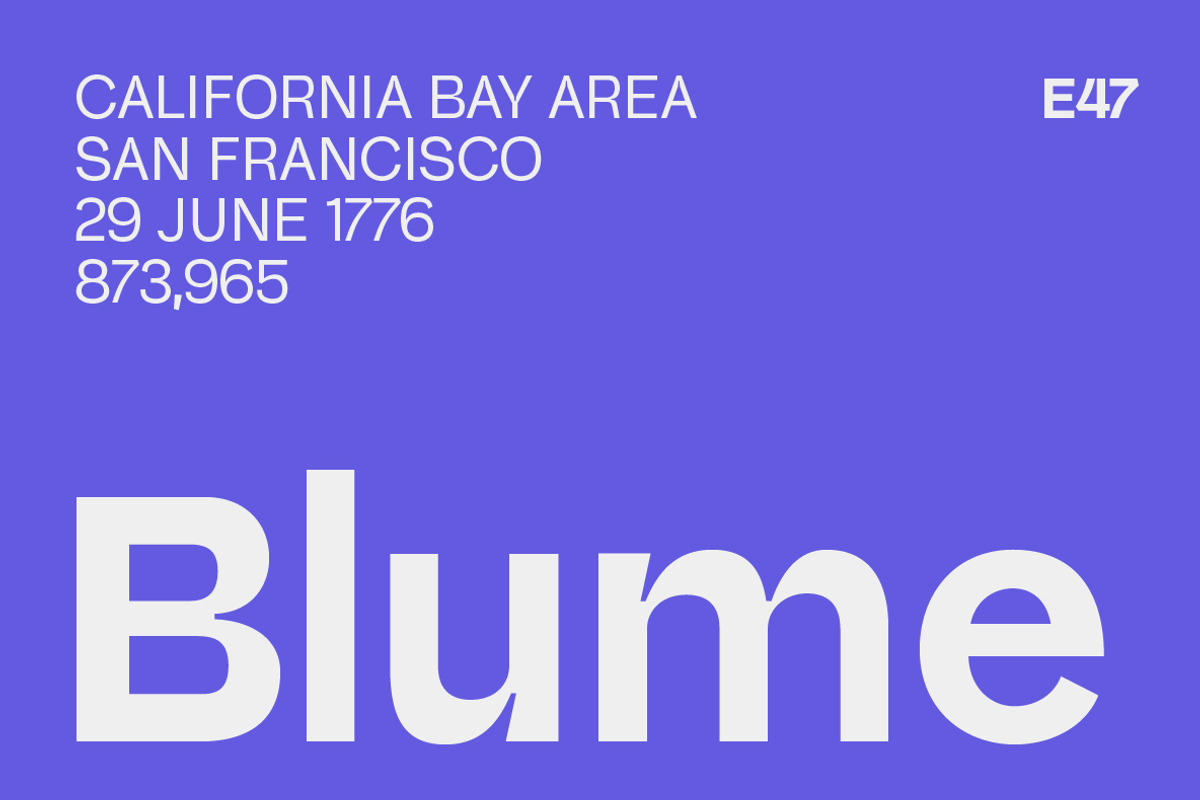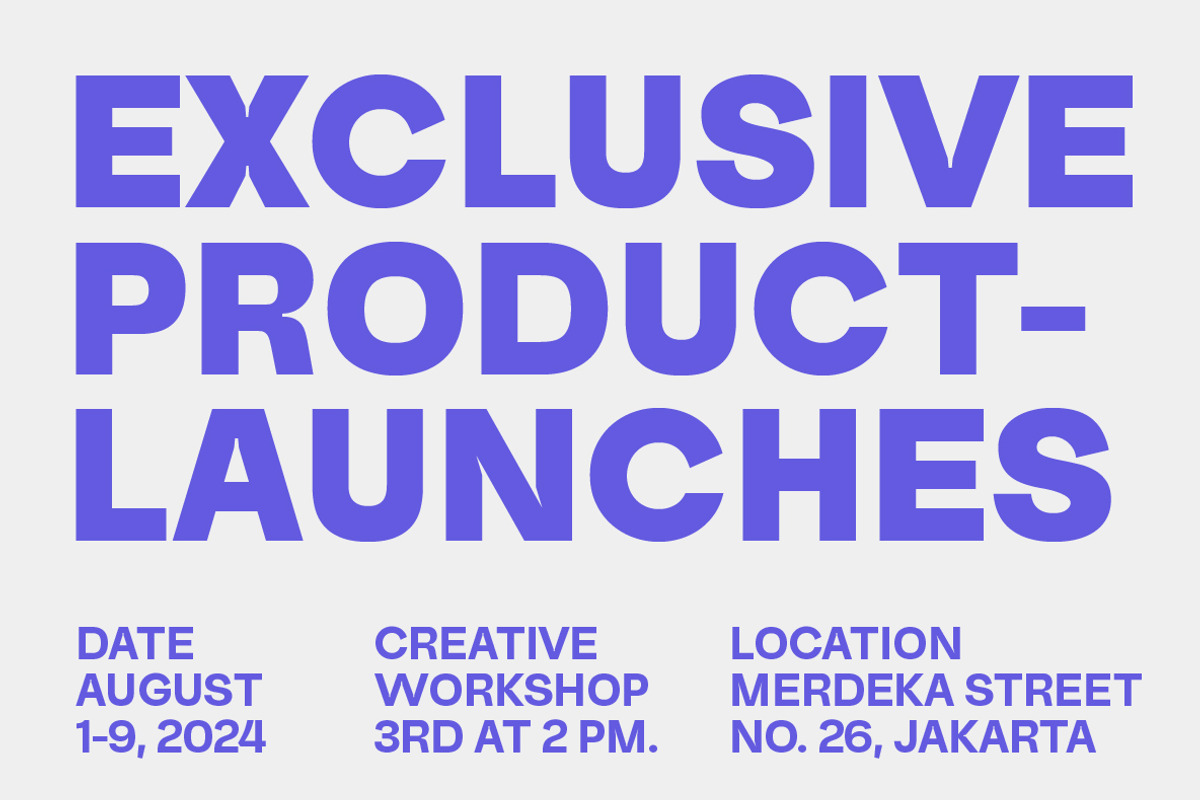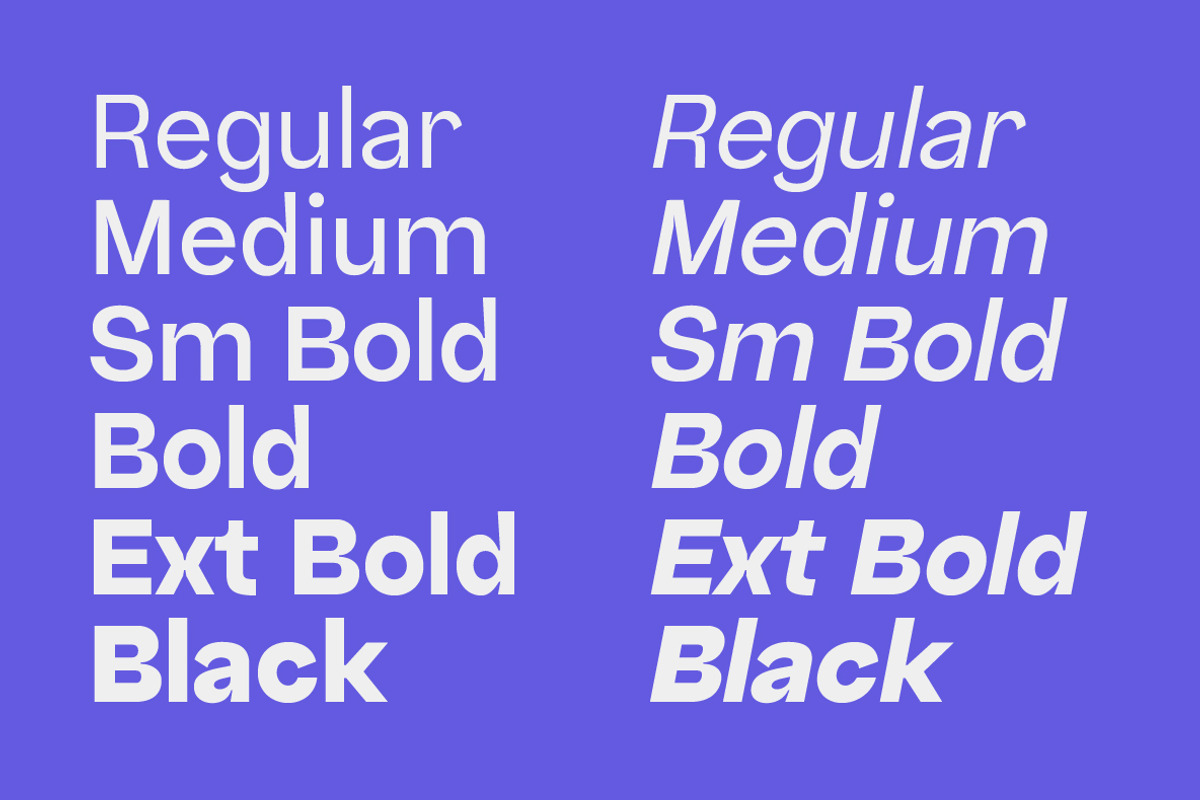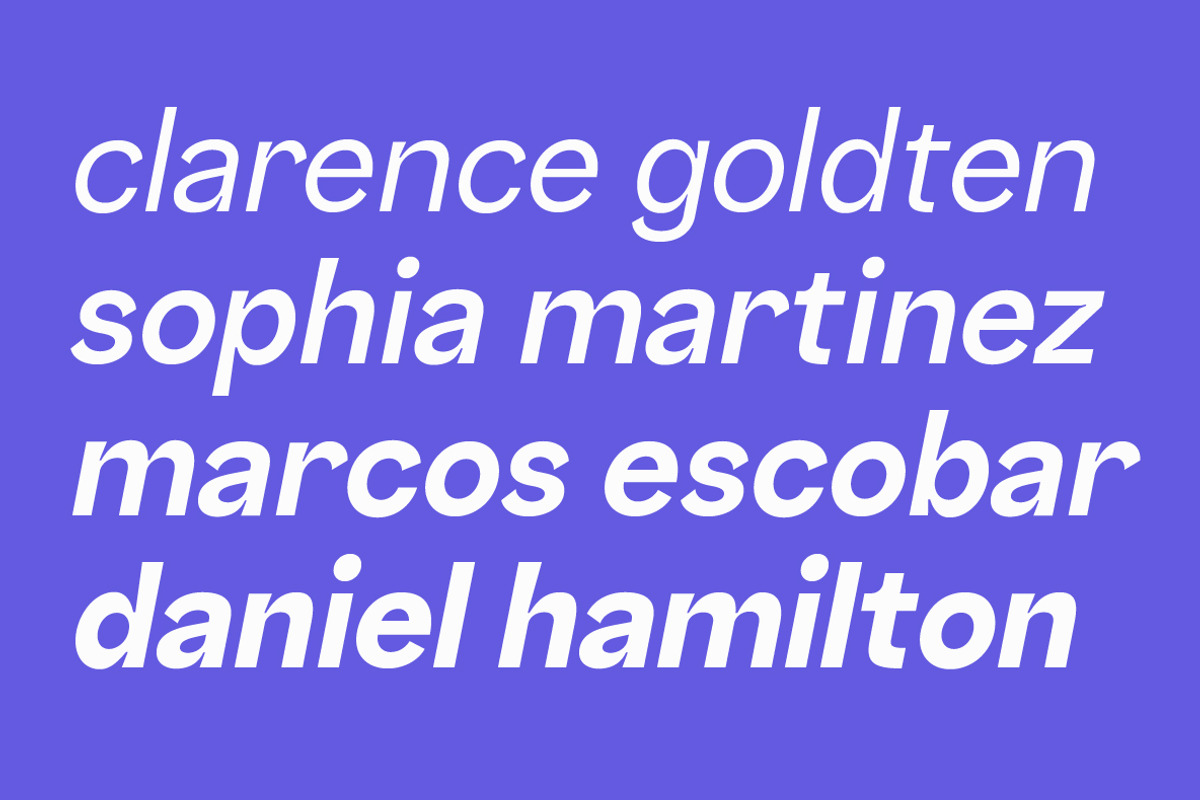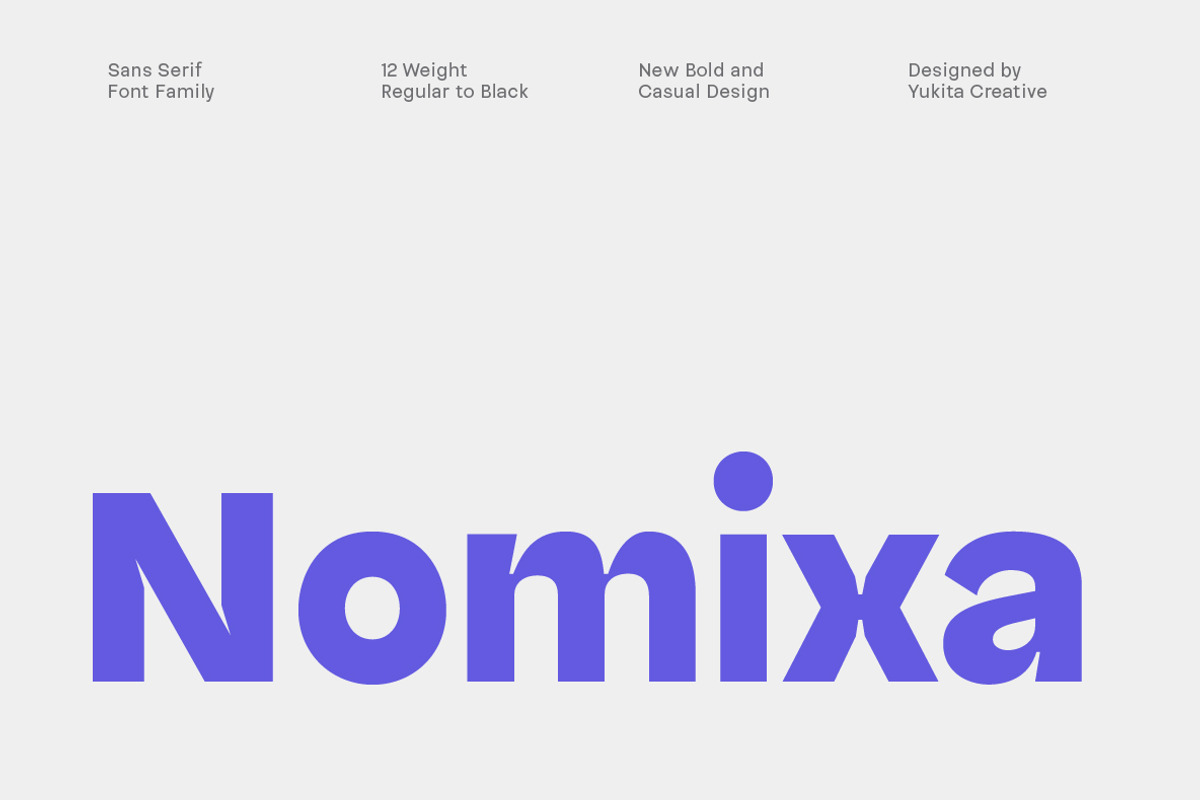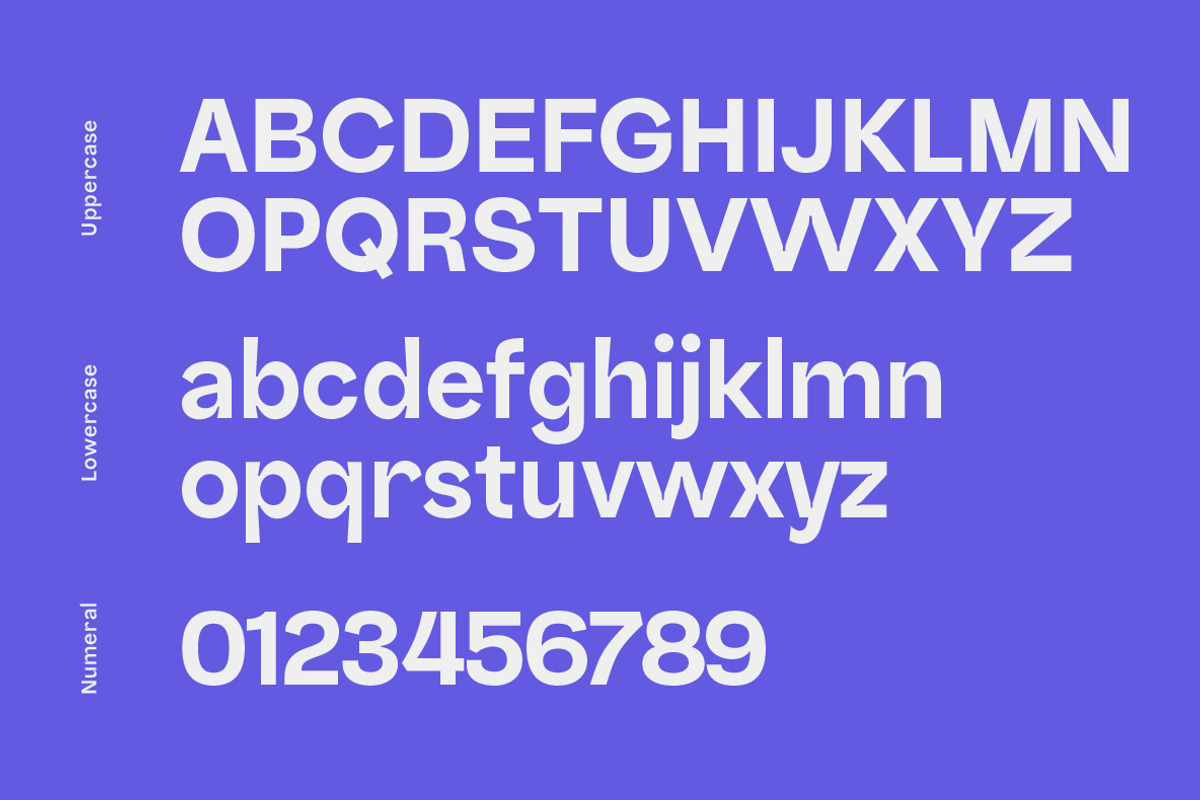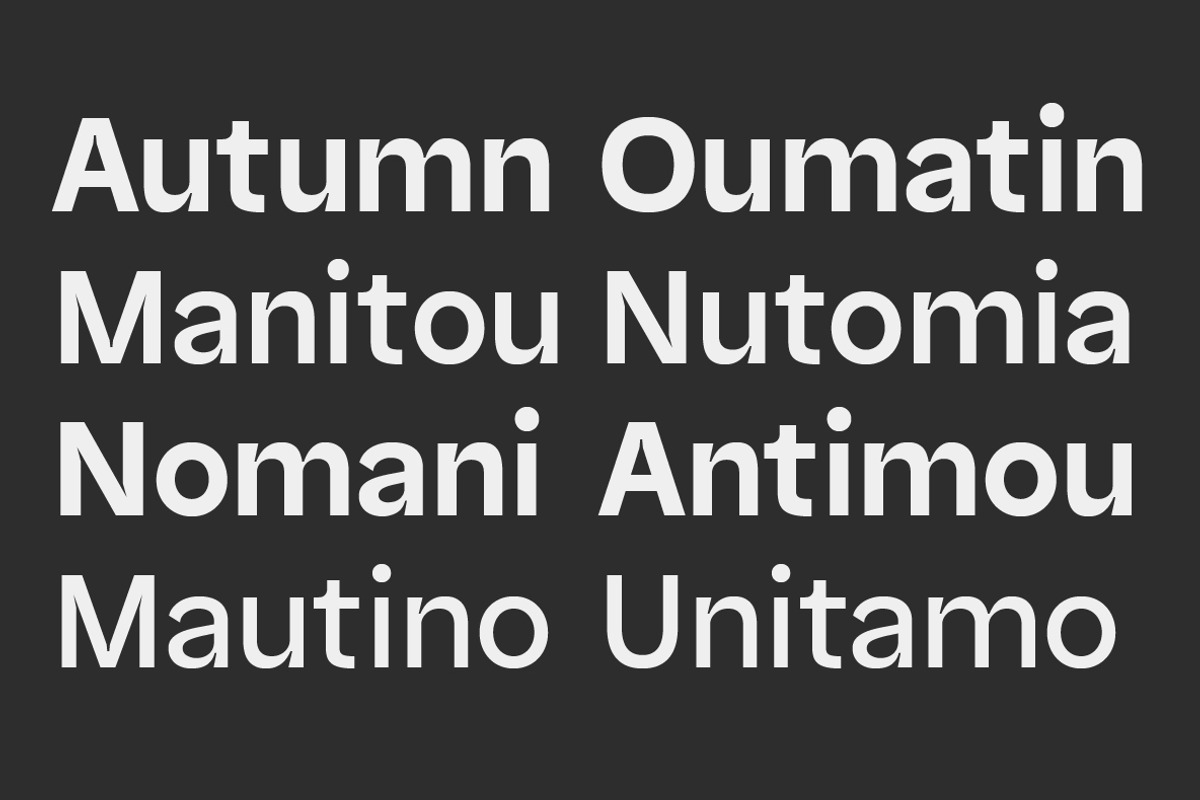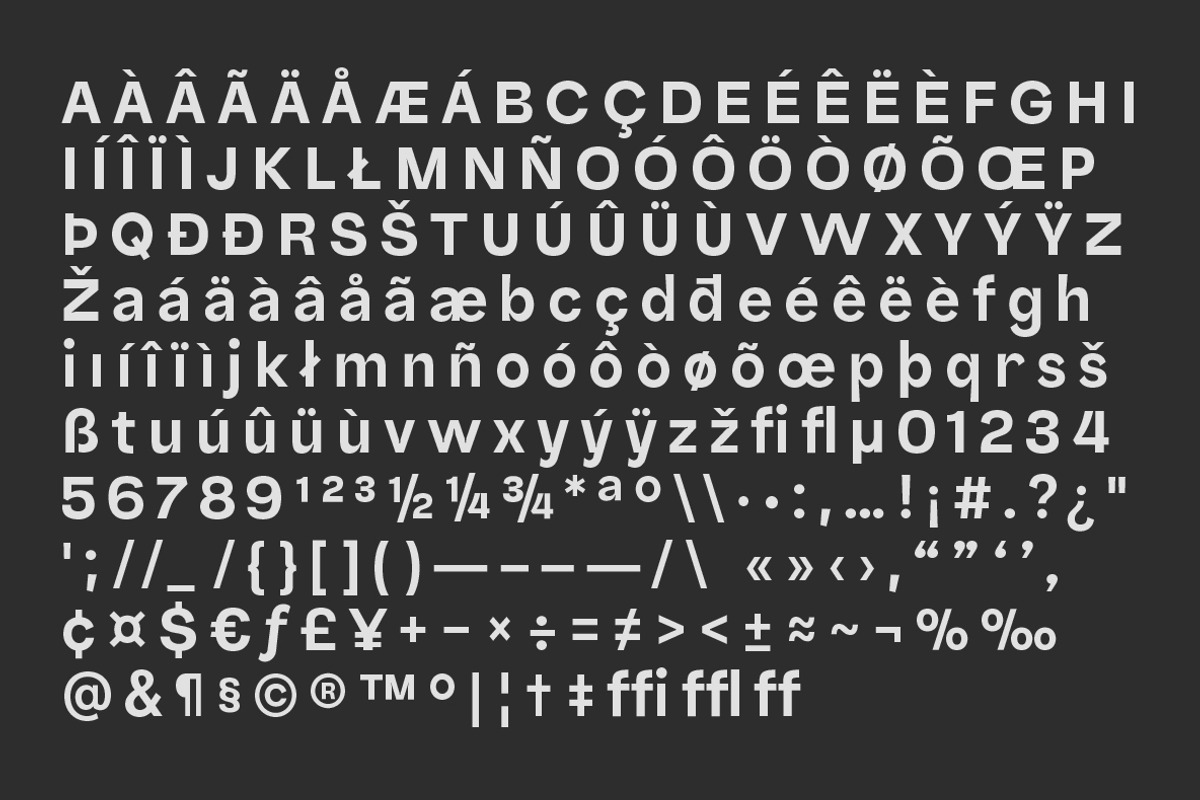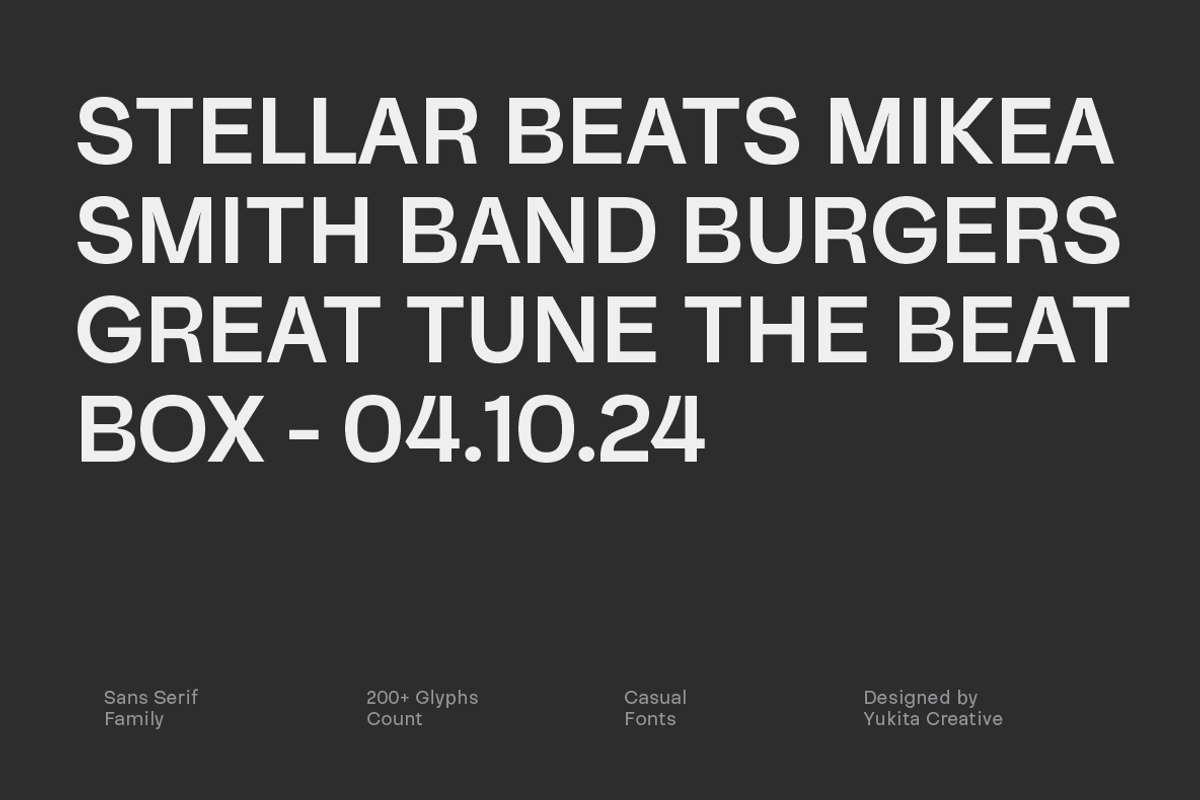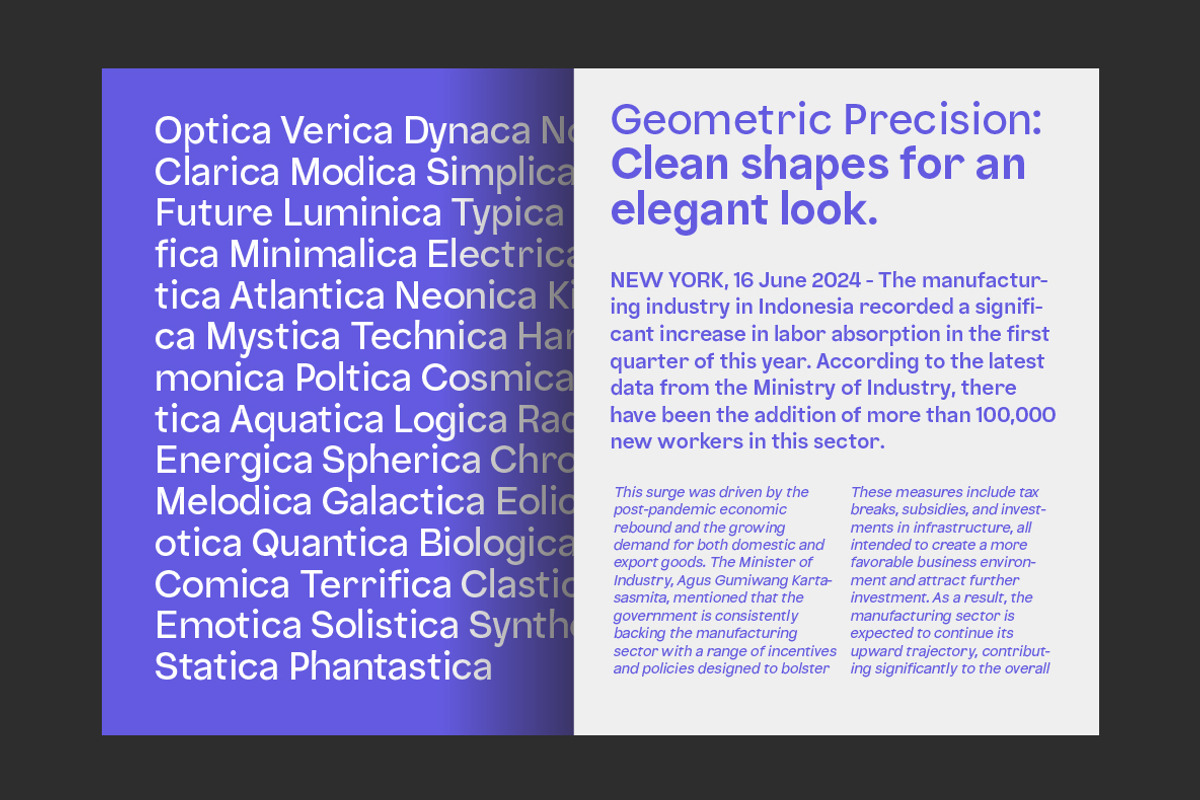
Nomixa Sans Serif Family
Nomixa is a sans-serif font family designed to make your designs stand out. With 12 different weights, including italics, Nomixa offers endless possibilities for creating bold, eye-catching, and modern designs. This font is perfect for projects that require a strong yet casual aesthetic, making it a must-have for any designer.
- Bold & Distinctive: Nomixa’s strong lines and unique character make your text pop, ensuring your message stands out.
- Casual & Multifunctional: Whether you're designing for print, web, or branding, Nomixa's clean and approachable style fits seamlessly into any project.
- Modern & Futuristic: Ideal for contemporary designs, Nomixa provides a fresh look that speaks to the future, perfect for tech, fashion, and lifestyle brands.
- 12 Weights & Italics: From light and airy to bold and powerful, each weight adds versatility, allowing for various expressions and styles.
Perfect For: Branding, advertising, packaging, web design, and more. With Nomixa, your designs will convey a sense of modernity and forward-thinking style.